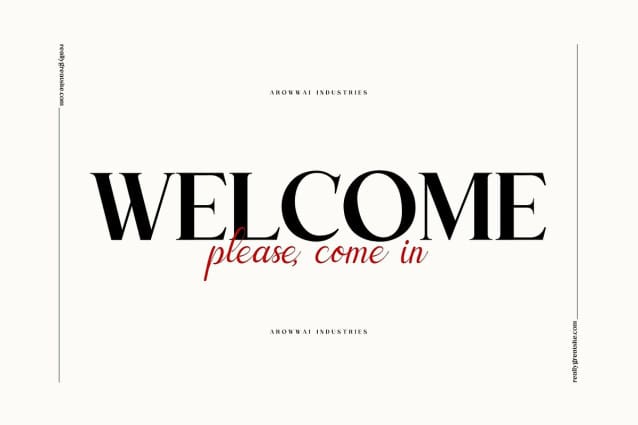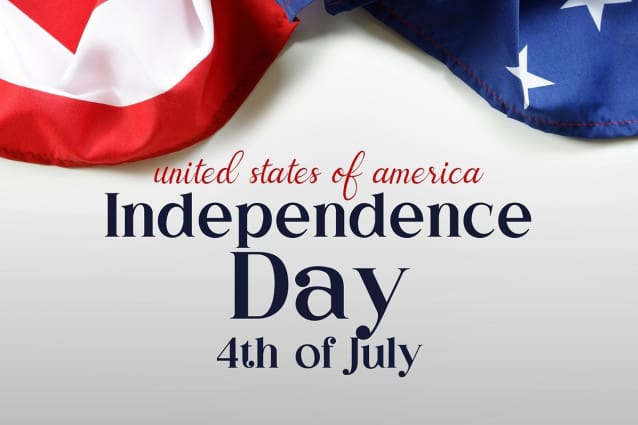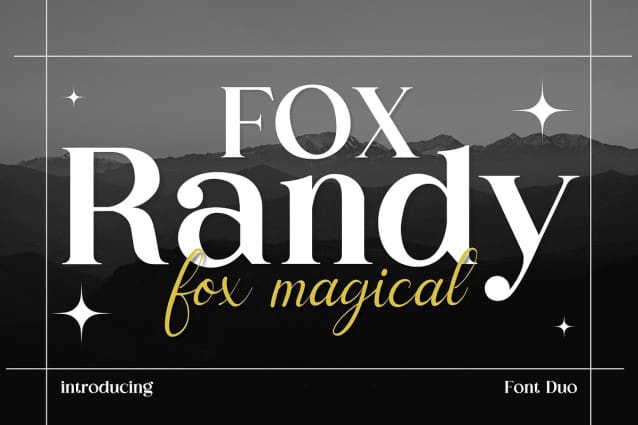
Fox Randy and Fox Magical Font Duo
Fox Randy and Fox Magical Font is a modern and beautiful font duo that can be used together in a design perfect for, blog posts, logos, branding, ads, invitations, greeting cards, planners, photo albums, decorations, and much more. It will be a wonderful asset to your fonts library as it has the potential to enhance any creation. Add it to any of your designs and enjoy the results!